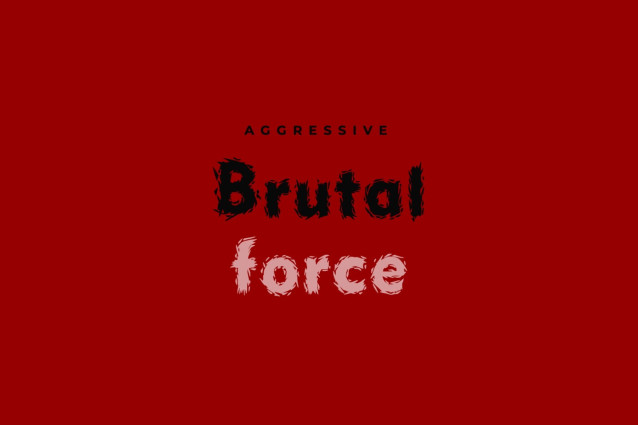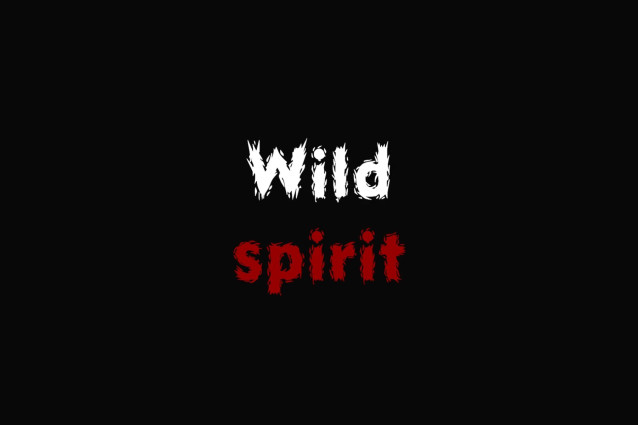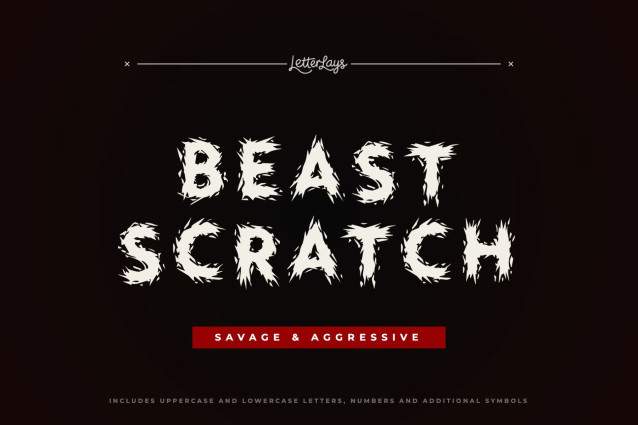
Beast Scratch Font
⚡ Beast Scratch is a savage display font built from rough, claw-like strokes and raw scratched texture. Every letter feels carved, torn, and full of aggressive motion, giving your design a brutal visual impact from the first word.
🩸 This font is made for projects that need power, danger, and primal energy: metal band logos, gaming titles, horror posters, tattoo lettering, fight event graphics, extreme sports branding, streetwear prints, album covers, and merch that needs to look loud, dark, and untamed.
Use Beast Scratch for:
• ⚡ Brutal logos and aggressive branding
• 🩸 Metal merch, album covers, and music posters
• 🗡️ Gaming titles, horror graphics, and dark UI
• 🖋️ Tattoo lettering and sharp display typography
• 🧨 Streetwear prints and extreme sports graphics
• 🔥 Savage headlines with a scratched handmade edge
The font includes uppercase and lowercase letters, numbers, punctuation, and additional symbols.